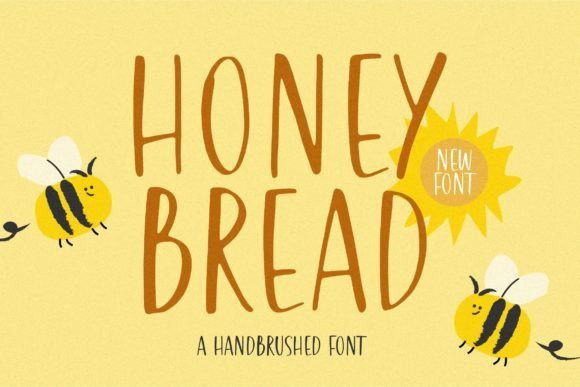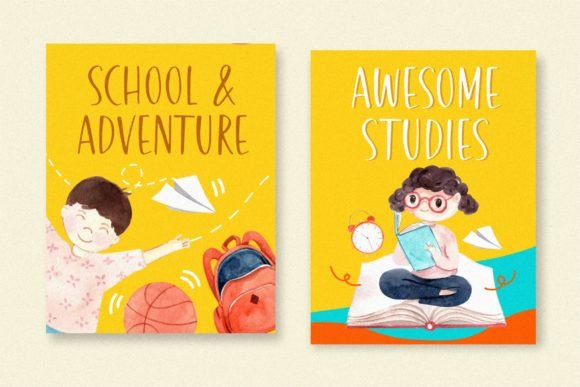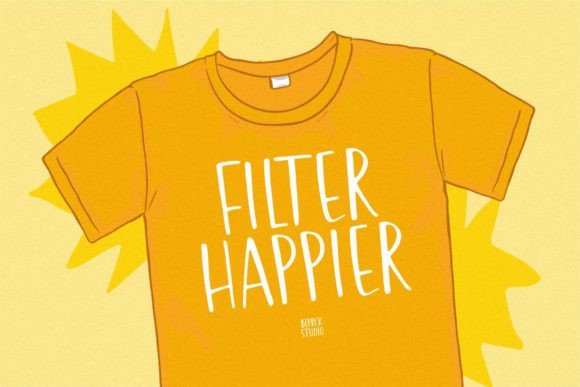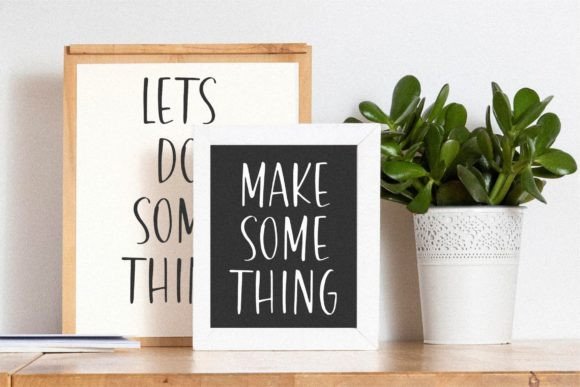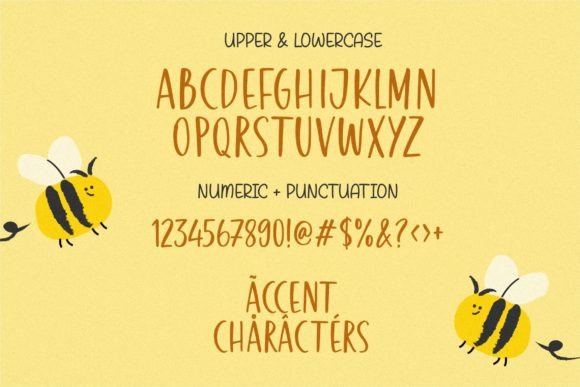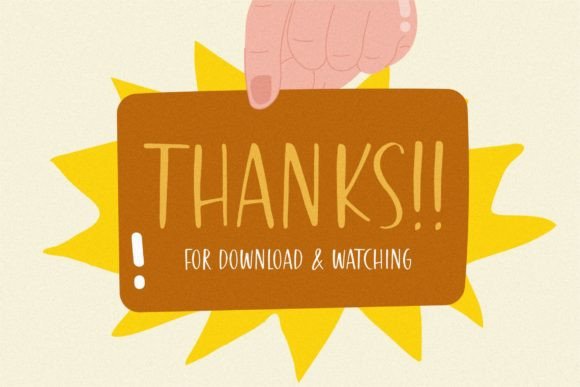
The Sweet Touch of Typography
Have you ever found yourself in a creative rut, staring at a blank page or canvas, searching for the perfect font to bring your project to life? It’s a moment we’ve all been in at some point or another. But what if I told you that there’s a font out there that’s sure to sweeten up your design game?
Enter the Honey Bread Font, a handbrushed font that’s perfect for adding a personal touch to your crafts, digital designs, presentations, and greeting cards. Whether you’re a seasoned designer or a hobbyist, this font has the potential to become your go-to favorite, no matter the occasion. Its unique, handwritten style makes it a valuable asset for designers looking to add a touch of personality to their work.
Honey Bread Font Key Features
- Font Style: Honey Bread is a sans-serif, handwritten font.
- Size: Honey Bread font comes in 6 weights, ranging from Light to Extra Bold, to cater to diverse design needs.
- Unique Characteristics: Honey Bread’s distinctive handwritten style and elegant curves make it perfect for creating eye-catching headings and titles.
- Script and Ligatures: Includes a wide range of ligatures and swashes to add a touch of personality to your designs.
Honey Bread Font Review
I recently had the chance to work with the Honey Bread Font, and I must say it’s a delightful addition to any design project. ✨ The font’s playful, handwritten feel immediately catches the eye and can add a touch of whimsy to any text.
Some of the things that work well with Honey Bread Font include:
- Its versatility: Honey Bread Font can be used for a wide range of projects, from branding and advertising to digital products and social media graphics.
- Its legibility: Despite its handwritten feel, the font is surprisingly easy to read, making it a great choice for longer blocks of text.
- Its customization options: The font comes with a range of weights and styles, allowing designers to customize the look and feel to suit their needs.
However, there are a few limitations to keep in mind: ⚠️ The font may not be the best choice for formal or professional projects, as its playful feel may come across as unprofessional. Additionally, the font’s handwritten nature can make it difficult to use for small text sizes or in situations where precision is key.
Overall, I’d give the Honey Bread Font 4 out of 5 stars. It’s a fun and versatile font that can add a lot of personality to a design project, but it may not be the best choice for every situation.
The Honey Bread Font is a versatile font that can be used for a variety of purposes, including:
– Creating a warm and inviting atmosphere for food-related designs.
– Adding a touch of whimsy to children’s book illustrations.
– Creating a vintage or retro aesthetic for advertisements or marketing materials.